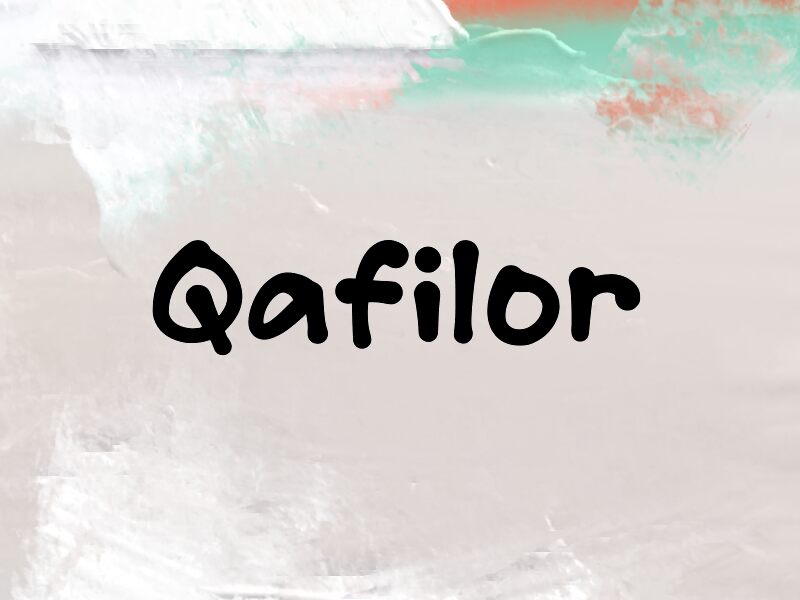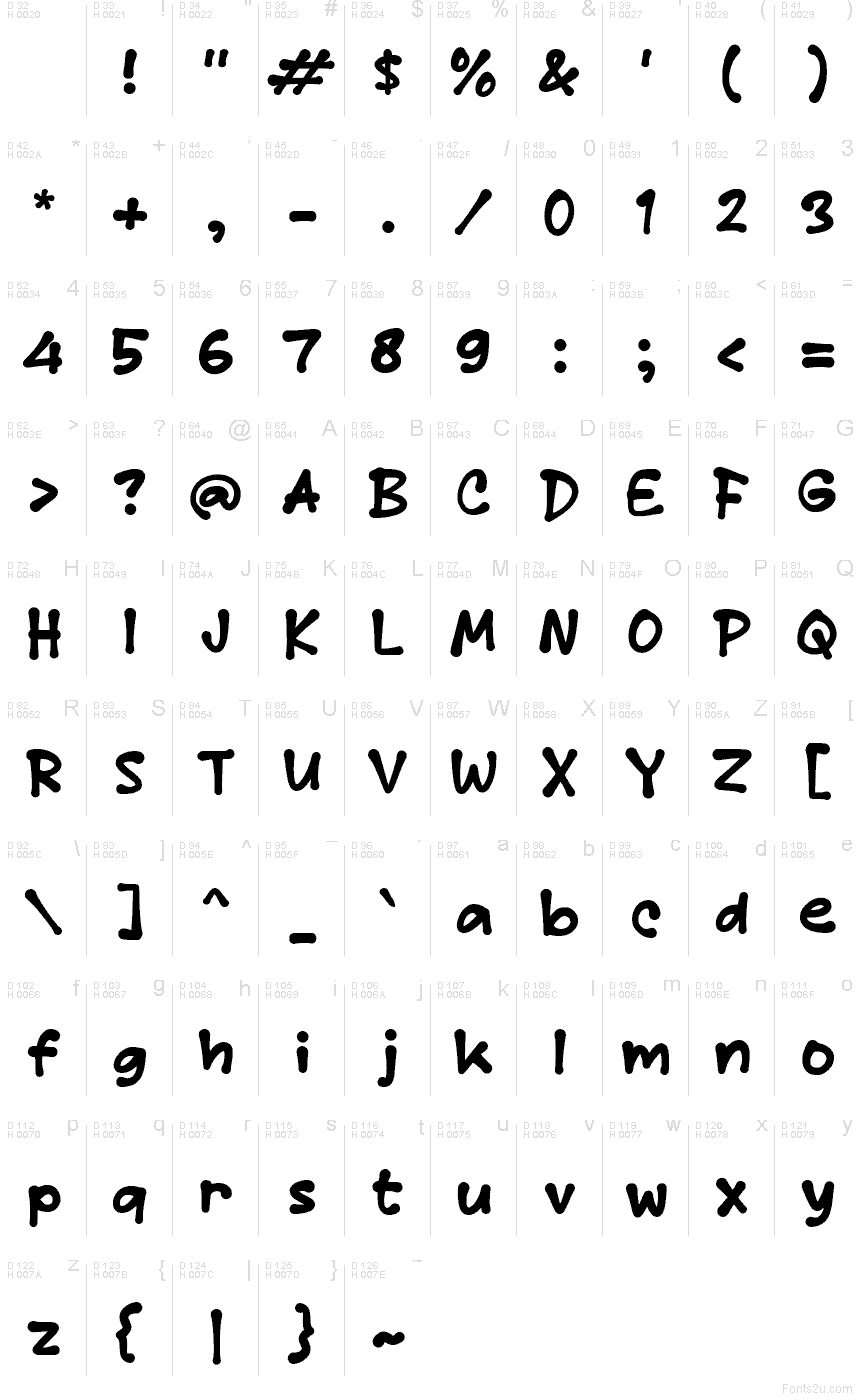
Qafilor
Qafilor font by wep is a free comic display typeface with a bold, hand-drawn bounce that feels straight out of a sketchbook. The thick, inky strokes and rounded blobs give each letter a friendly wobble, like wet paint that just settled. It reads quickly but never feels stiff, making it great when you need text that talks to kids and grown-ups with the same playful voice.
Using Qafilor, you can bring energy to children’s book covers, web comics, game UIs, classroom posters, YouTube thumbnails, stickers, and casual branding. This free font holds its charm at larger sizes, so let it headline while a clean sans-serif handles the small print.